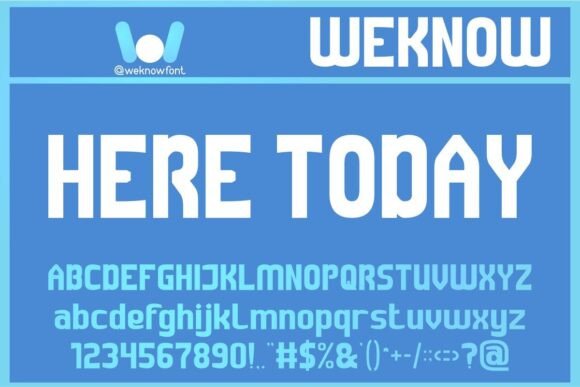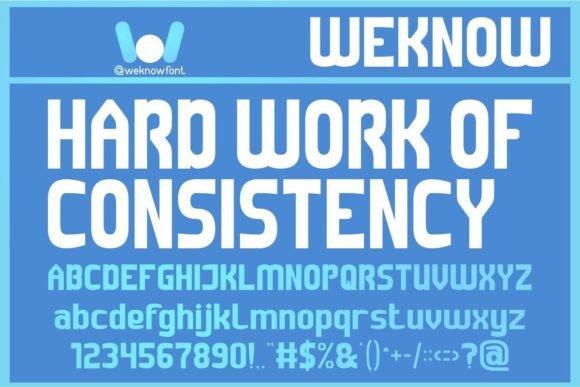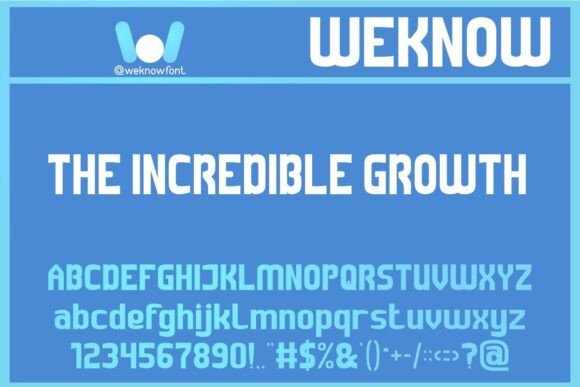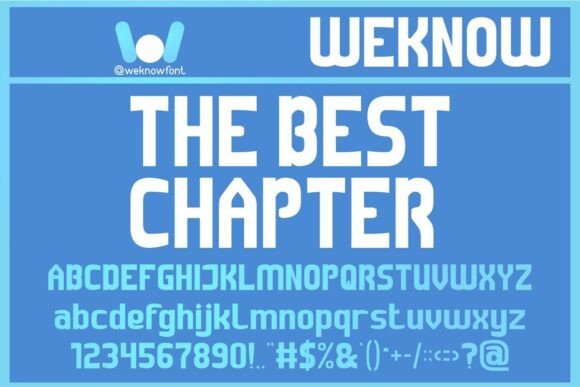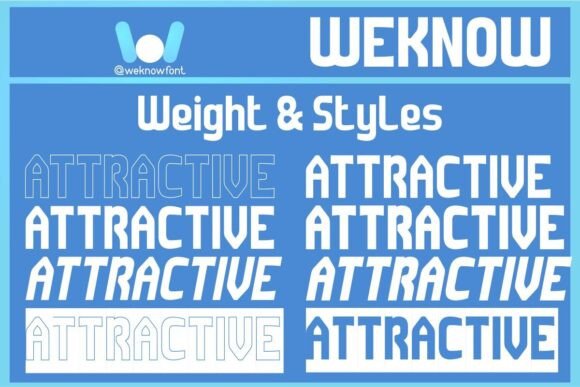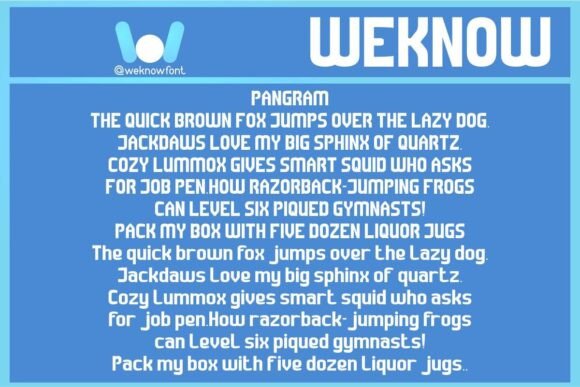
Unleashing the Power of Design with Attractive Font
Imagine you’re staring at a blank canvas, waiting for that spark of creativity to ignite your next design project. You want a font that’s not only aesthetically pleasing but also versatile enough to convey your message. That’s where the Attractive Font comes in – a classic Sans Serif typeface that effortlessly blends contemporary style with playful elegance.
With its radiant display and clear typography, the Attractive Font is your go-to choice for crafting captivating logos, memorable corporate identities, and punchy headlines. Its flexibility makes it an invaluable asset for designers, serving as a perfect complement to your creative pursuits. Whether you’re working on a magazine layout, book cover, or comic strip, the Attractive Font amplifies your designs, giving them that extra oomph to make a lasting impression.
Attractive Font Key Features
- Font Family: Attractive Font is a unique, custom-designed font family, available in 4 styles (Regular, Italic, Bold, and Bold Italic).
- Unique Characteristics: Attractive Font features a distinctive, elegant design with rounded edges and subtle flair, making it perfect for creating visually appealing designs.
Attractive Font Review
As a designer, I’ve had the chance to work with many fonts, but ‘Attractive Font’ stands out in its own unique way. Here’s my honest take on it.
- Unique flair: The font has a distinctive character that sets it apart from the usual sans-serif or serif fonts. It adds a touch of sophistication to any design.
- Legibility: Despite its ornate nature, the font remains legible even at smaller font sizes, making it suitable for body text.
- Variety of weights: The font family includes a range of weights, from light to bold, allowing for versatility in design.
- Limited availability: Unfortunately, the font is not as widely supported as some other popular fonts, which can be a problem for designers who need to ensure cross-browser compatibility.
- Size limitations: While the font is legible at smaller sizes, it can become distorted or lose its charm when scaled up or down significantly.
‘Attractive Font’ is a beautiful addition to any design arsenal, but its limitations must be taken into account. It’s perfect for projects where uniqueness and sophistication are key, but may not be the best choice for everyday use or for designs that require cross-browser compatibility.
Getting the Most Out of Attractive Font
To get the most out of Attractive Font, use it in combination with other design elements to create a visually appealing layout.
Headings and titles
Alternatives to “Attractive Font” for Designers
Open Sans is a clean and modern sans-serif font that is highly legible. It is ideal for body text, headings, and digital interfaces. It is a great alternative to Attractive Font as it offers a more neutral and versatile design.
Comparison: While Attractive Font is more decorative, Open Sans is a more functional and practical choice for everyday use.
Lato is a sans-serif font that is highly customizable and offers a unique blend of modern and classic elements. It is suitable for branding, advertising, and digital products. It is a better choice than Attractive Font for designers who want a more sophisticated and elegant look.
Comparison: While Attractive Font is more playful, Lato is more refined and professional.